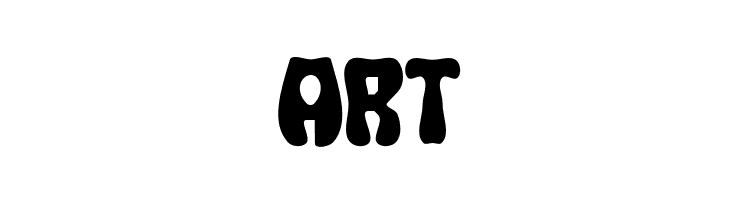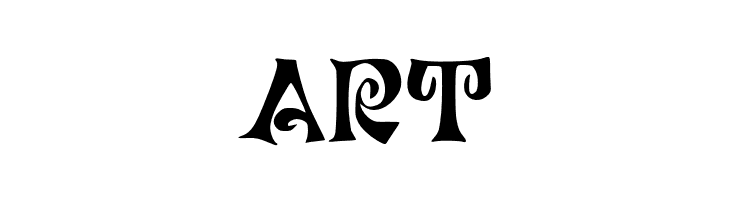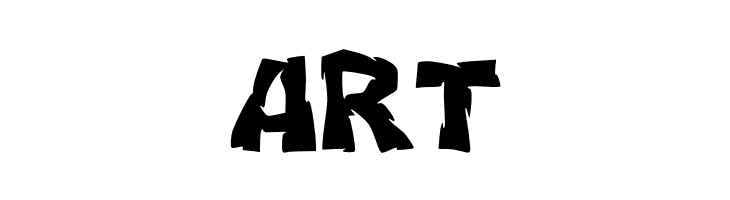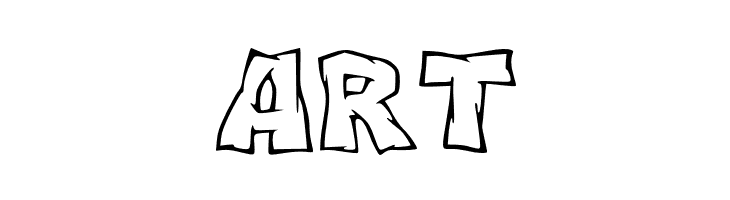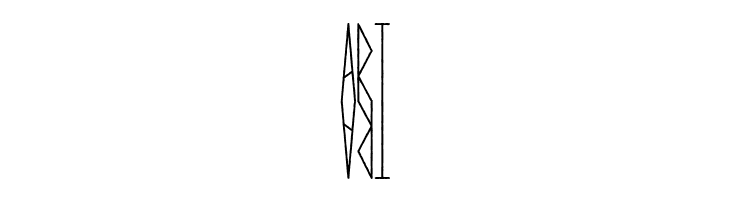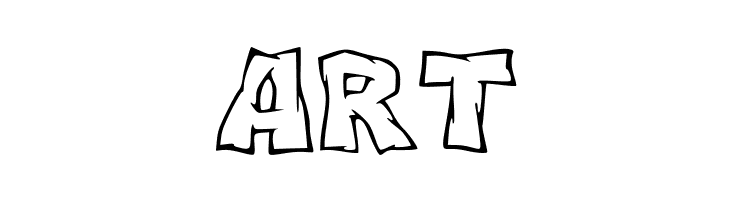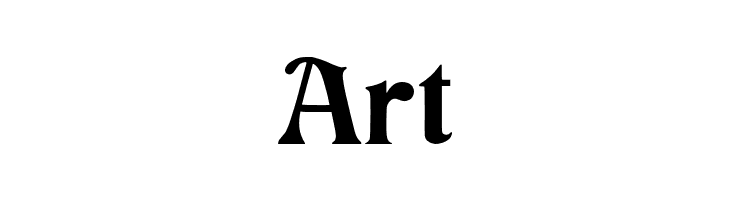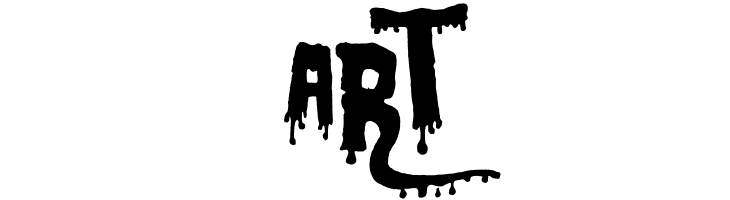
An intricate, decorative font with elongated, geometric letterforms.
A bold, playful font with thick, rounded strokes and a cartoonish style.
A decorative font with bold, snake scale-inspired patterns.
A bold, decorative font with whimsical curves and intricate details.
A bold, jagged font with a hand-crafted, dynamic style.
A bold, hand-drawn font with a playful, graffiti-like style.
A bold, dripping font with a spooky, eerie style.
A bold, gothic-inspired font with sharp serifs and modern flair.